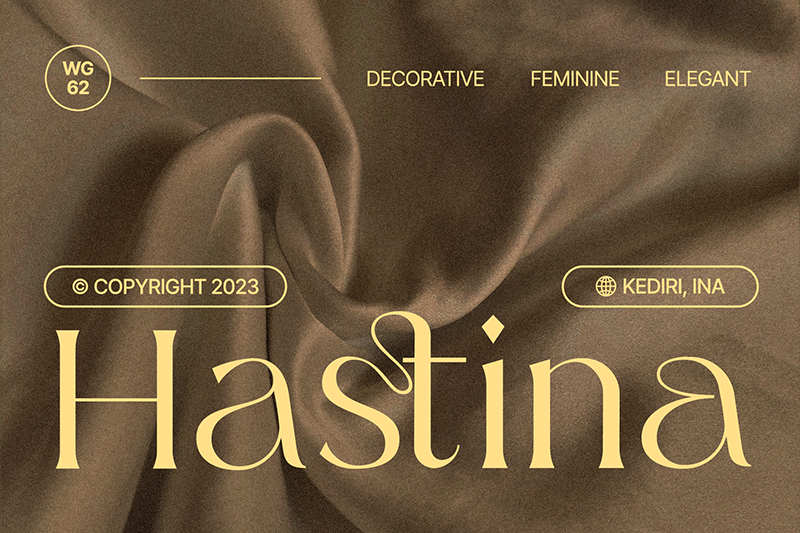
Preview and download Hastina Font. Created by Warung Grafis 62 in Basic Serif styles with Free for personal use license.
Font name: | Hastina |
Author: | Warung Grafis 62 |
Hastina is a beautiful handwritten font with a flowing and elegant style. It features a varying baseline, smooth lines, and stunning alternates. Hastina is perfect for creating a personal and inviting touch to your designs, such as wedding invitations, thank you cards, quotes, greeting cards, logos, business cards, and more. Buy The Commercial License in https://creativemarket.com/warunggrafis62/91611204-Hastina-Elegant-Serif-Font |